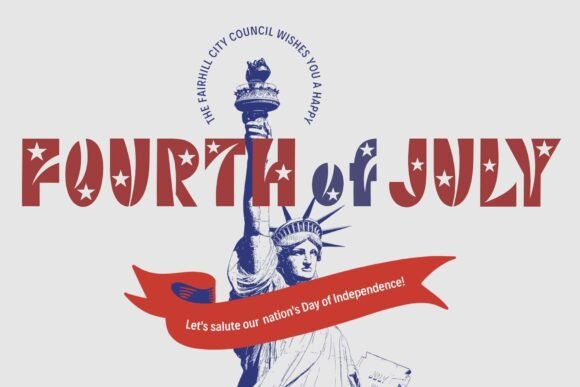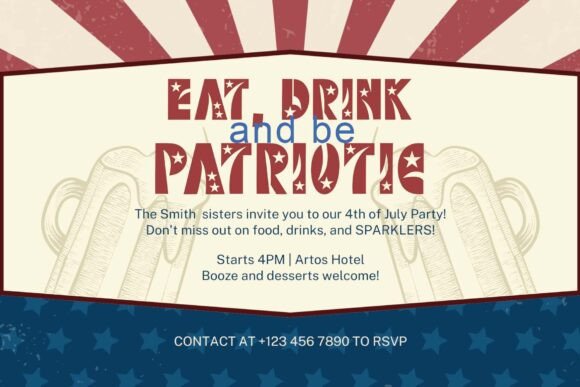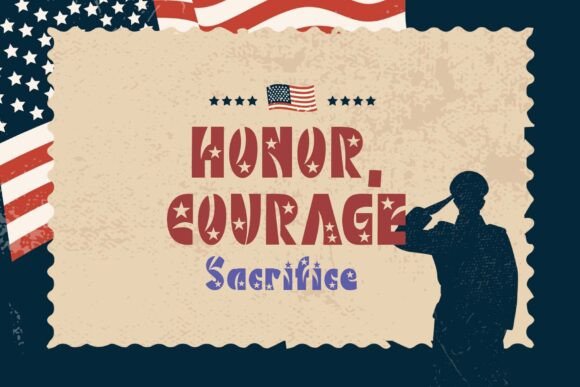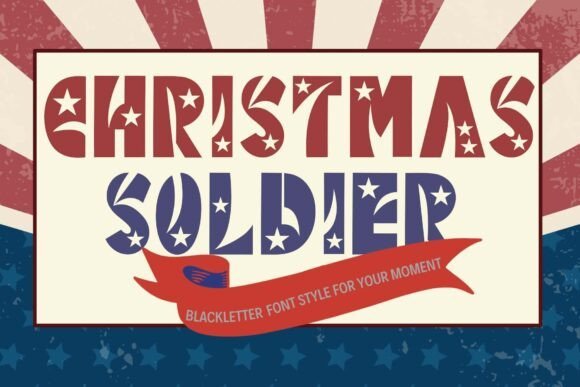
Introduction to Christmas Soldier Font
โ€œChristmas Soldierโ€ is a unique and elegant blackletter font with star decoration on each letter.
This font is equipped with uppercase, lowercase, numeral, punctuations and multilingual support Very suitable for 4th of July, patriotic, independent day, christmas, summer, spring, fatherโ€™s day and others.
Key Features of Christmas Soldier Font